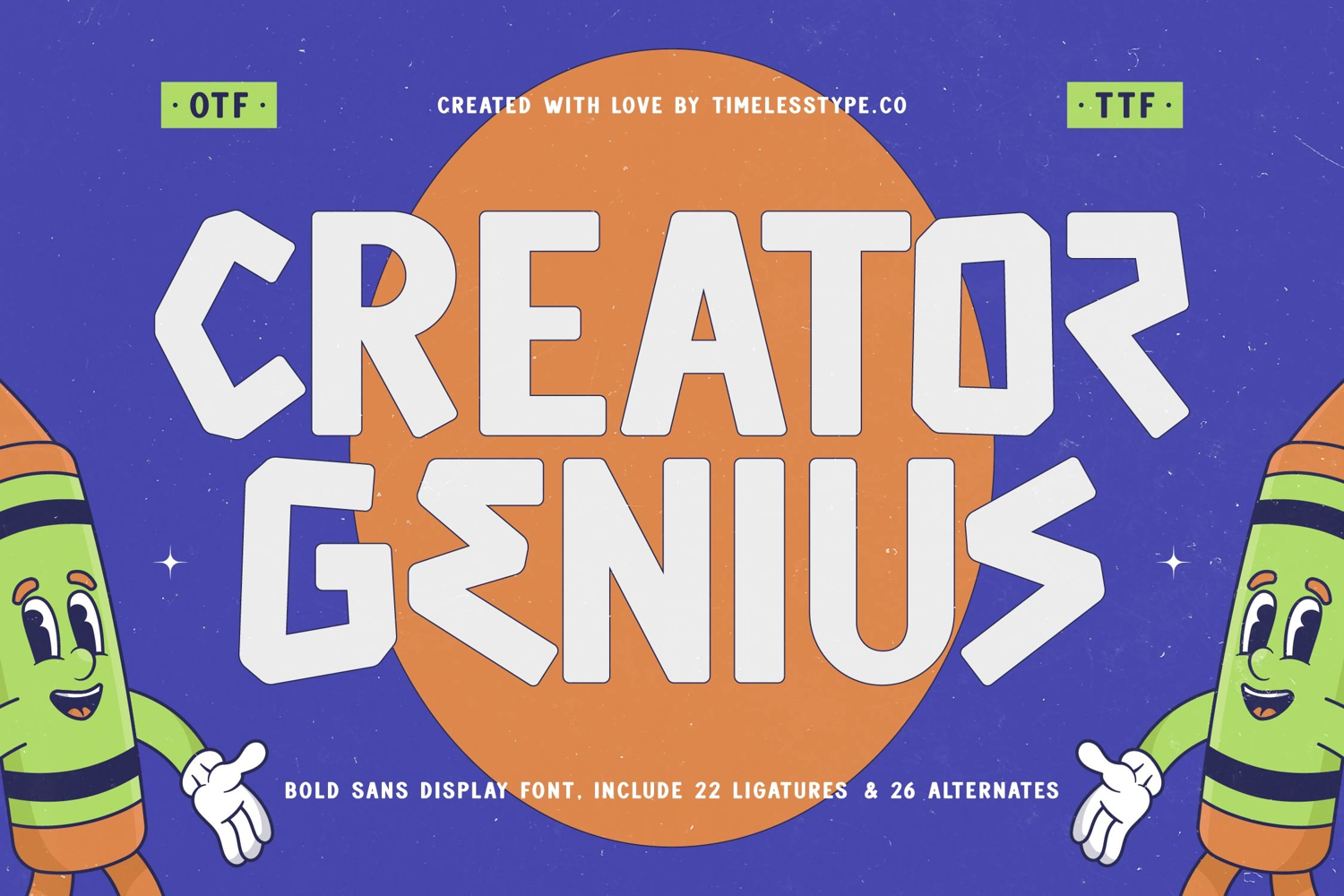
Creator Genius - Bold Sans Display Font
Creator Genius is a bold sans serif display font that brings energy, playfulness, and modern style into one dynamic package. With its chunky strokes, geometric edges, and quirky alternates, this typeface is designed to stand out and grab attention instantly. Equipped with 22 ligatures and 26 alternates, Creator Genius allows designers to experiment with expressive typography, ensuring every design feels bold, unique, and full of personality.
This font is perfect for headline typography, where its strong forms make an immediate impact across posters, banners, and editorial spreads. In branding and logo design, Creator Genius communicates creativity and fun, making it ideal for children’s products, lifestyle brands, streetwear, and businesses that want to stand out with a playful identity. Its bold shapes also make it excellent for packaging design, especially for snacks, beverages, toys, or artisanal goods where eye-catching typography is key to shelf appeal.
Creator Genius thrives in advertising campaigns, event posters, and social media graphics, where its alternates and ligatures give every design a fresh, energetic twist. For editorial layouts, merchandise, and creative projects, the font adds charm and individuality, turning typography into a focal point of the visual design.
With multilingual support, Creator Genius adapts effortlessly to global projects, making it suitable for international branding and promotions.
Ultimately, Creator Genius is more than just a display font—it is a design tool for bold, playful, and creative storytelling. Whether used for headlines, branding, packaging, or digital media, it guarantees projects that radiate fun, energy, and unforgettable modern style.